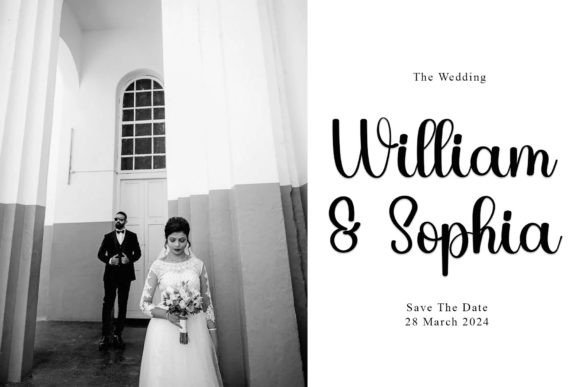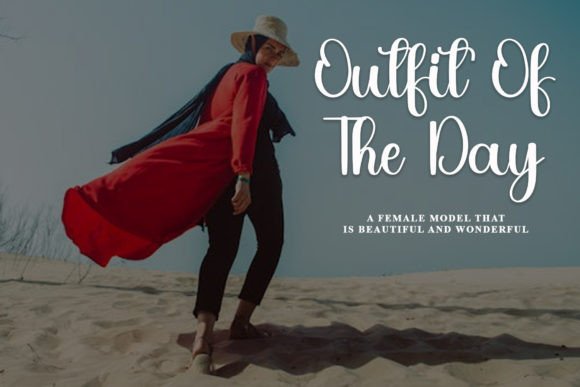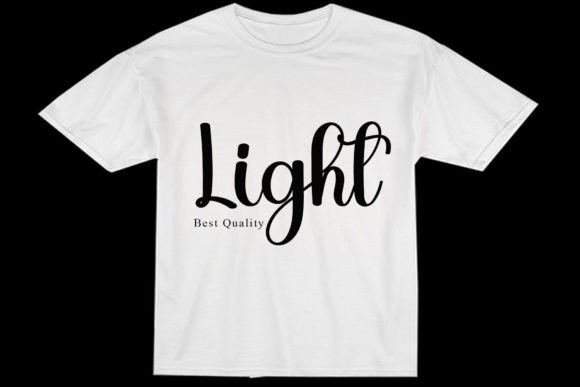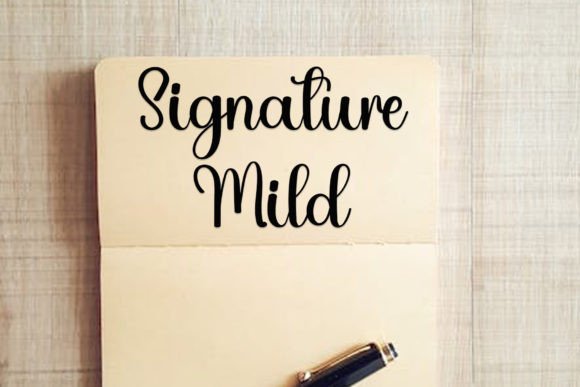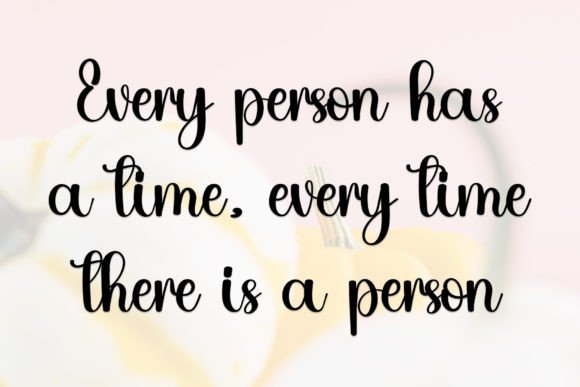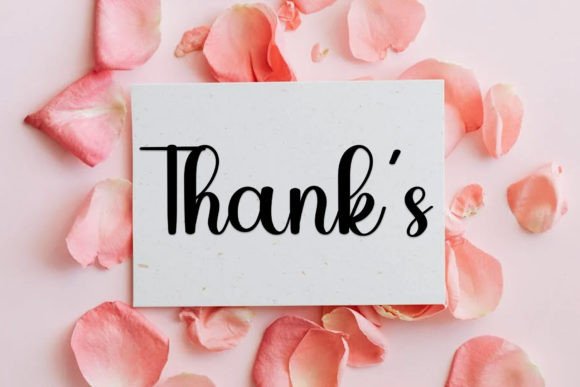
Biscuits Font: Elevate Your Designs with Elegance and Charm
In the world of typography, fonts play a crucial role in conveying the tone and personality of a design. For designers and crafters looking to add a touch of sophistication and warmth to their projects, Biscuits Font is an excellent choice. This stylish handwritten font is designed to exude elegance and charm, making it perfect for a variety of applications, from invitations and branding to social media and more.
The Characteristics of Biscuits Font
Biscuits Font is characterized by its fluid strokes and natural flow, which create a captivating and sophisticated look. The font’s handwritten style gives it a personal and approachable feel, making it ideal for designers who want to add a human touch to their designs. The elegant and charming nature of Biscuits Font makes it suitable for a wide range of projects, from formal events to casual social media posts.
Uses of Biscuits Font
Biscuits Font is a versatile font that can be used in various design projects, including:
• Invitations: Whether you’re designing wedding invitations, birthday party invites, or baby shower announcements, Biscuits Font is an excellent choice. Its elegant and charming style adds a touch of sophistication to any invitation.
• Branding: For businesses looking to create a unique and memorable brand identity, Biscuits Font can be used to develop a distinctive logo, tagline, or marketing materials.
• Social Media: Add a personal touch to your social media posts and stories with Biscuits Font. Its fluid strokes and natural flow make it perfect for creating engaging and eye-catching content.
• Digital and Print Media: Biscuits Font can be used in a variety of digital and print media, including brochures, flyers, posters, and more.
Benefits of Using Biscuits Font
There are several benefits to using Biscuits Font in your designs:
• Elegance and Charm: Biscuits Font adds a touch of elegance and charm to any design, making it perfect for projects that require a sophisticated look.
• Versatility: The font’s versatility makes it suitable for a wide range of projects, from formal events to casual social media posts.
• Personal Touch: Biscuits Font’s handwritten style gives it a personal and approachable feel, making it ideal for designers who want to add a human touch to their designs.
• Easy to Read: The font’s clear and legible design makes it easy to read, even at small sizes.
Tips for Using Biscuits Font
Here are some tips for using Biscuits Font effectively in your designs:
• Pair with Other Fonts: Experiment with pairing Biscuits Font with other fonts to create a unique and visually appealing combination.
• Use in Headlines and Titles: Biscuits Font is perfect for use in headlines and titles, where its elegant and charming style can make a big impact.
• Experiment with Colors: Try using Biscuits Font in different colors to add an extra layer of depth and interest to your design.
• Keep it Simple: Don’t overcomplicate your design. Keep it simple and let Biscuits Font’s elegance and charm shine through.
Biscuits Font is a stylish and elegant handwritten font that can add a touch of sophistication and warmth to any design. Its fluid strokes and natural flow create a captivating and charming look, making it perfect for a wide range of projects. Whether you’re a designer or crafter, Biscuits Font is an excellent choice for anyone looking to elevate their designs and add a personal touch.
Get Creative with Biscuits Font
So why wait? Get creative with Biscuits Font today and see how it can transform your designs. With its elegance, charm, and versatility, Biscuits Font is sure to become a go-to font in your design arsenal.